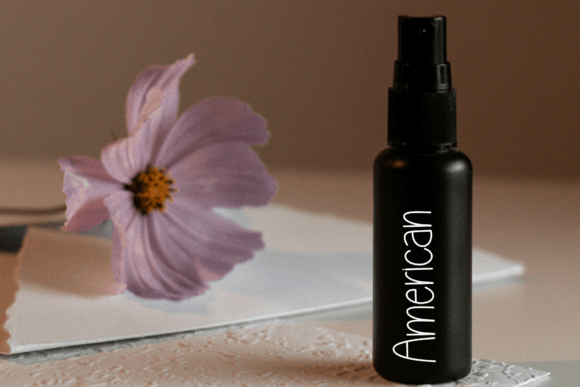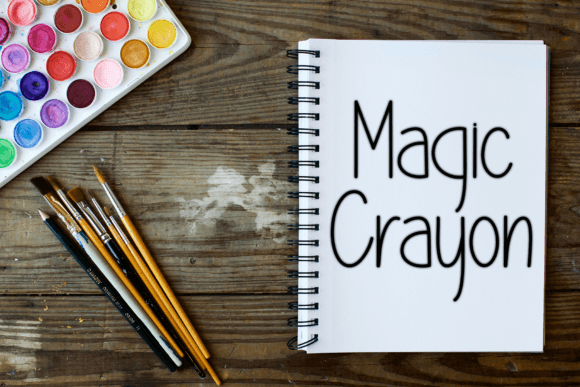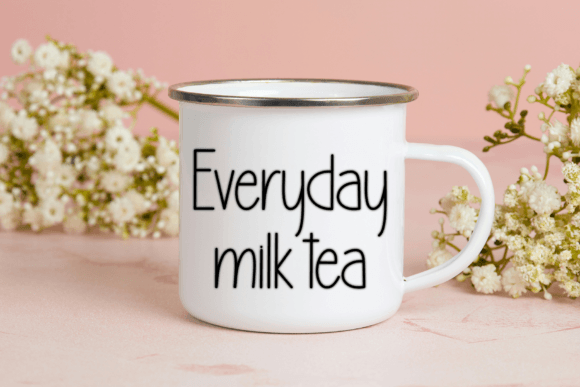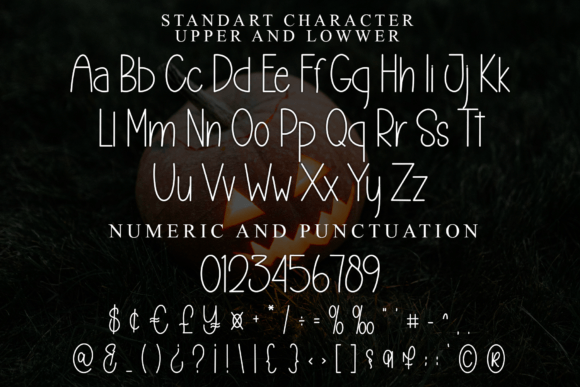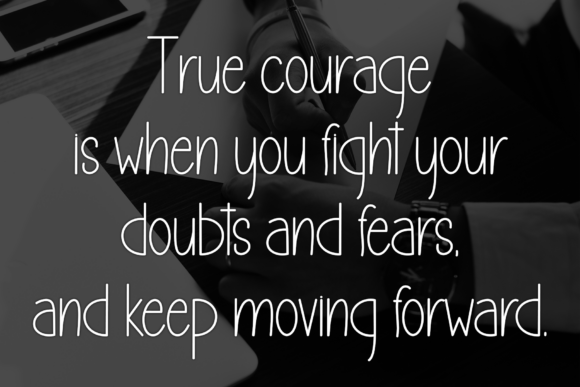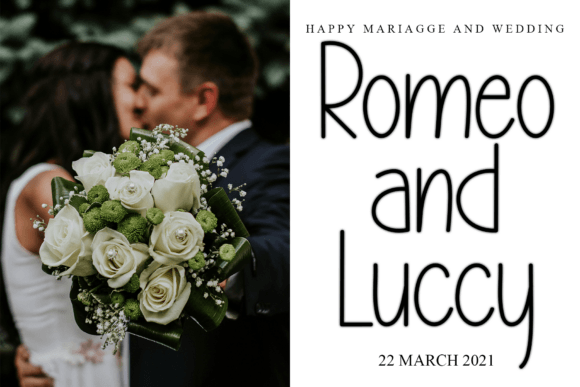
Introduction to Little Bird Font
As a designer, have you ever found yourself stuck in a creative rut, searching for that perfect font to elevate your project to the next level? You’ve poured your heart and soul into your work, but something’s missing. That’s when the magic happens – you stumble upon a font that not only complements your design but becomes an integral part of it. For many creatives, that font is Little Bird Font, a stunning, elegant, and beautiful typeface that brings a touch of sophistication to any project.
Little Bird Font is more than just a design resource; it’s a game-changer. With its impeccable form and contemporary atmosphere, it’s the perfect addition to any creative project. Whether you’re working on a branding campaign, designing a wedding invitation, or creating a digital product, this font is sure to make a statement. And with its PUA encoding, accessing its amazing glyphs and ligatures is a breeze.
Key Features of Little Bird Font
- High-quality design: The Little Bird Font is a unique and creative design resource perfect for any project, with intricate details and a delicate touch.
- Unique characteristics: The Little Bird Font features a distinctive, whimsical design that is sure to add a touch of personality to any creative project.
Honest Review: Little Bird Font
I recently had the opportunity to work with the Little Bird Font, and I must say it’s been a delightful experience. As a designer, I’m always on the lookout for high-quality design resources that can elevate my creative projects. The Little Bird Font definitely delivers.
Some of the key features that I love about the Little Bird Font include:
- High-quality typography
- Wide range of applications (logos, print, digital)
While the Little Bird Font is a great resource, I do have a few minor complaints. The font can be a bit difficult to read at smaller font sizes, and some of the characters may not be suitable for certain design projects. ⚠️
Overall, I’m really impressed with the Little Bird Font. It’s a solid addition to any designer’s toolkit, and I would definitely recommend it to others. With its high-quality typography and versatile design options, it’s a great choice for anyone working on a creative project. ✨
The Little Bird Font is perfect for a variety of design projects, including invitations, greeting cards, and menus. Its high-quality design and transparent background make it easy to use in combination with other design elements.